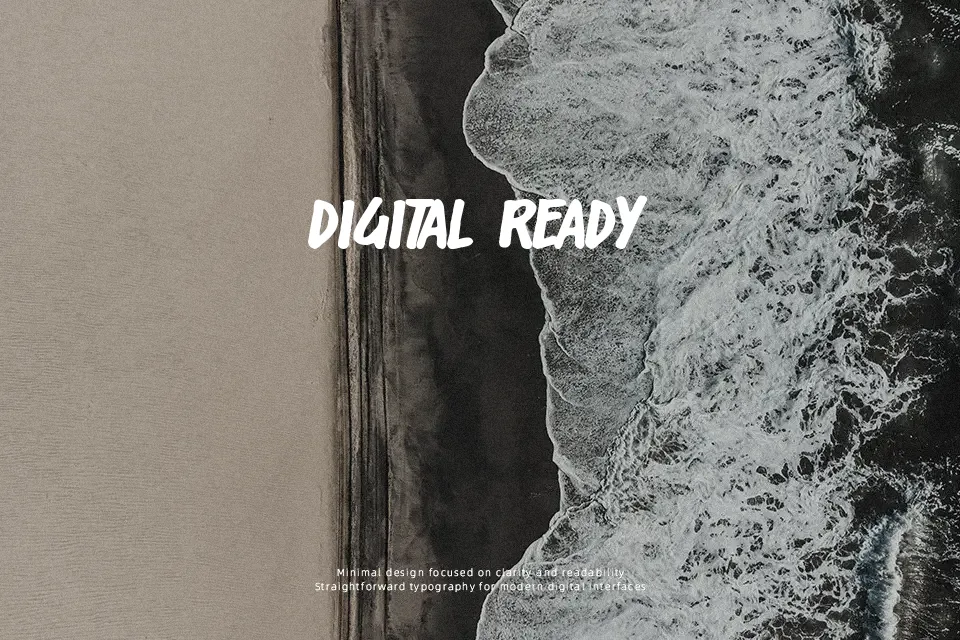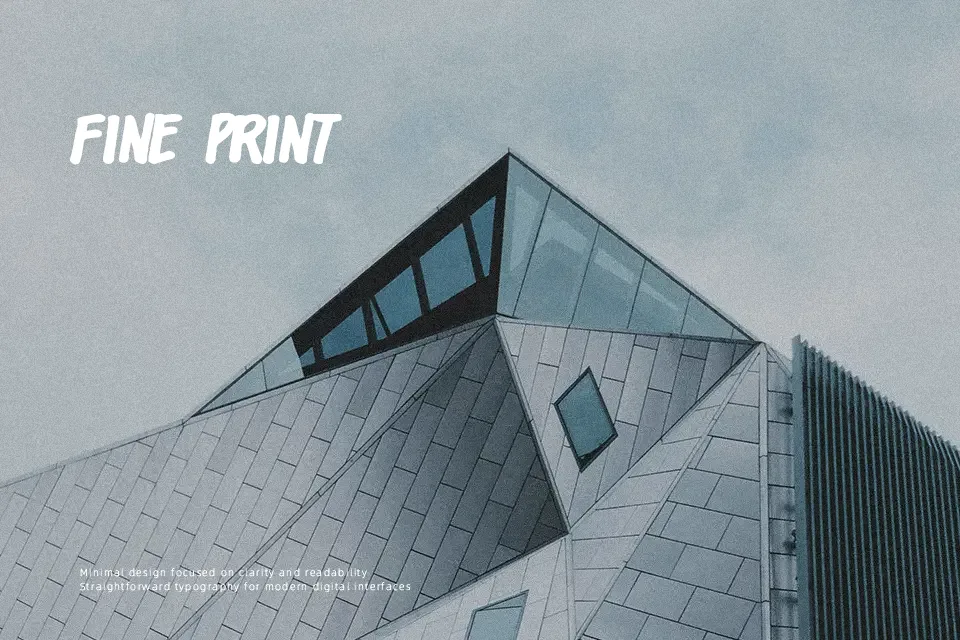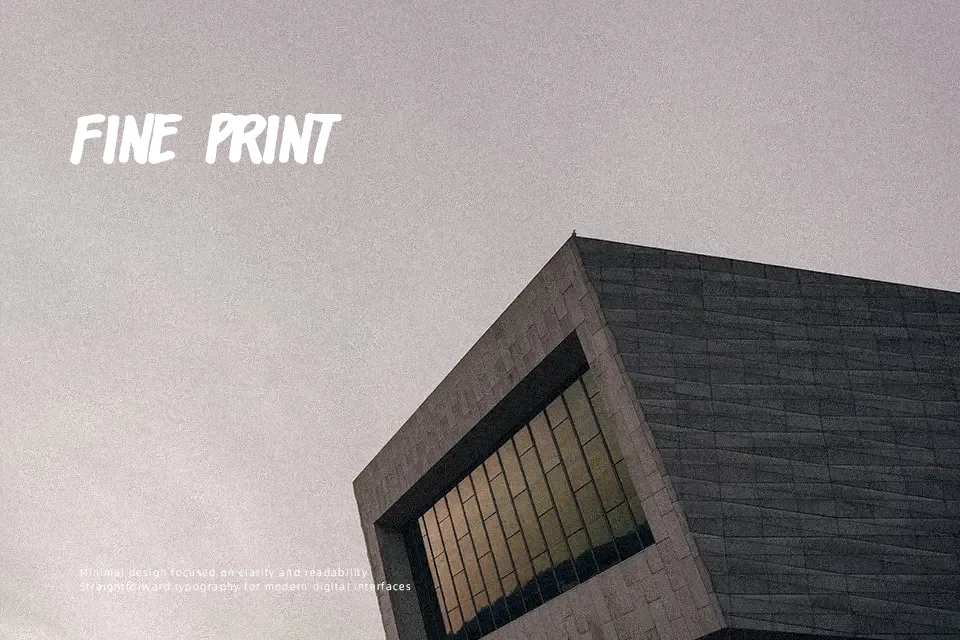
Shorelines Display Font
Shorelines Display Font features a lively, handcrafted construction defined by subtle stroke variations and an upbeat, organic rhythm. The letterforms showcase uneven baselines and breezy spacing that mimic spontaneous penmanship, lending authentic personality to apparel graphics, boutique packaging, and travel editorial covers. Because the stroke weight remains relatively uniform, individual glyphs retain distinction when rendered in hero headers and social media banners. However, the loose alignment and quirky character widths make the typeface unsuitable for extended body paragraphs or dense data tables, where visual cohesion rapidly declines. The design functions at its highest potential when given ample breathing room in prominent, short-form display layouts.
Best For: summer festival posters, apparel graphics, boutique product packaging, travel blog headers
Not Ideal For: extended body text, dense spreadsheet data, mobile user interface labels, formal legal documents
Perfect for branding, headline, and logo, with a creative and display style.